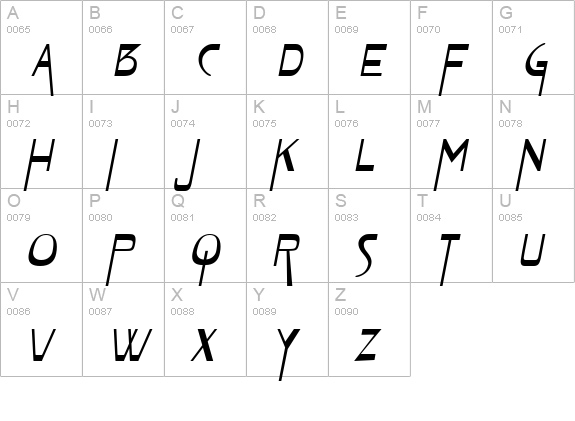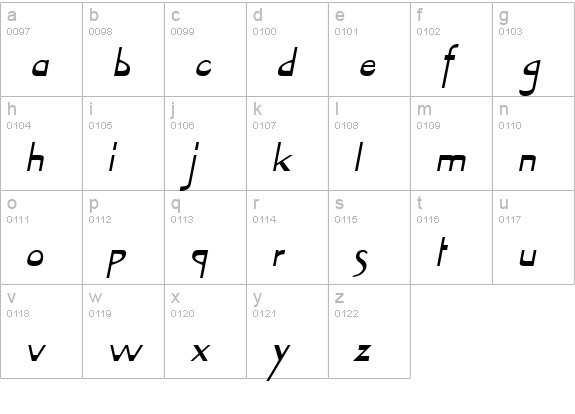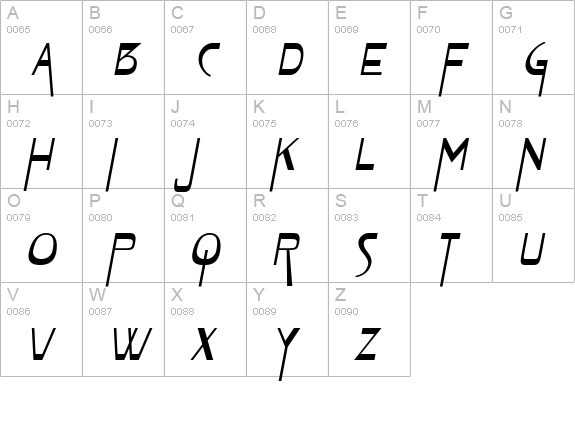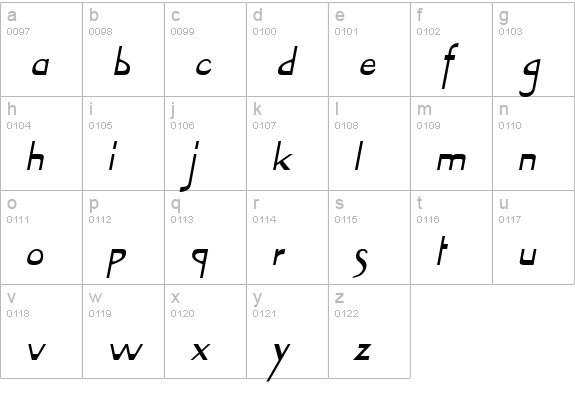
Zyme Oblique Font Details
Zyme Oblique is a distinctive, italic variant in the Zyme typeface family \xE2\x80\x94 well suited to design and typography projects.
Zyme Oblique font is a modern and stylish typeface that exudes sophistication and elegance. With its sleek lines and unique angles, this font adds a touch of flair to any design project. The slanted letters convey a sense of movement and dynamism, making Zyme Oblique perfect for projects that require a contemporary and edgy look. The best part? Zyme Oblique font is available for free download at FontsMarket.com. Whether you're working on a branding project, website design, or any other creative endeavor, this font will elevate your work and make it stand out. Don't miss the opportunity to add this stunning typeface to your font collection and take your designs to the next level.